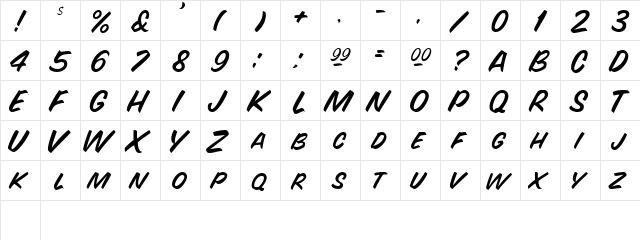
BrendalauerScriptSCapsSSK Regular
Design Context for BrendalauerScriptSCapsSSK Typeface
BrendalauerScriptSCapsSSK flows with the natural rhythm of handwritten lettering, making it ideal for designs that call for warmth and personal expression.
Font Pairing: Combine BrendalauerScriptSCapsSSK with a simple geometric sans for maximum contrast — the tension between flowing curves and clean structure is a classic typographic pairing.
Pro Tip: Use BrendalauerScriptSCapsSSK for short runs of text — names, titles, or taglines. Extended body copy in script faces tires the eye quickly.